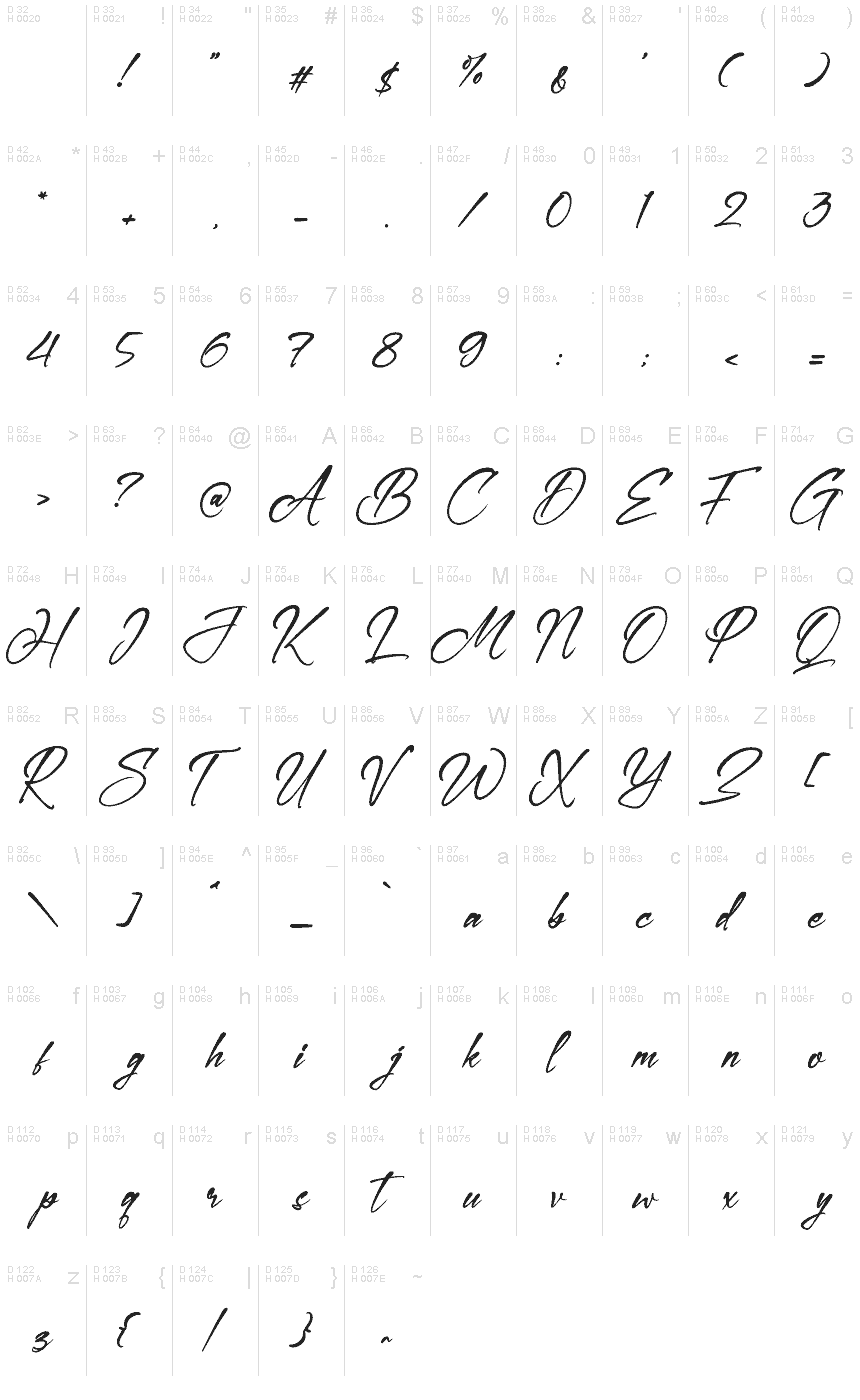
Floydretton font by Letterena Studios is a beautiful handwritten free font designed to elegantly decorate and uplift your designs. Expressive, cursive, and with a calligraphic flair, its dreading style and flowing movement are what make it stand out. The unusual visual appearance of this script is also what can make its possible use cases vary significantly.
First of all, consider Floydretton for text/logo signatures in general whether on letter envelopes or across branding initiatives. It’s also very suitable for product packaging labels especially related to goods like hand creams, perfumes, jewelery and watches. Finally check it our for wedding invitations calligraphy and social media ad designs.